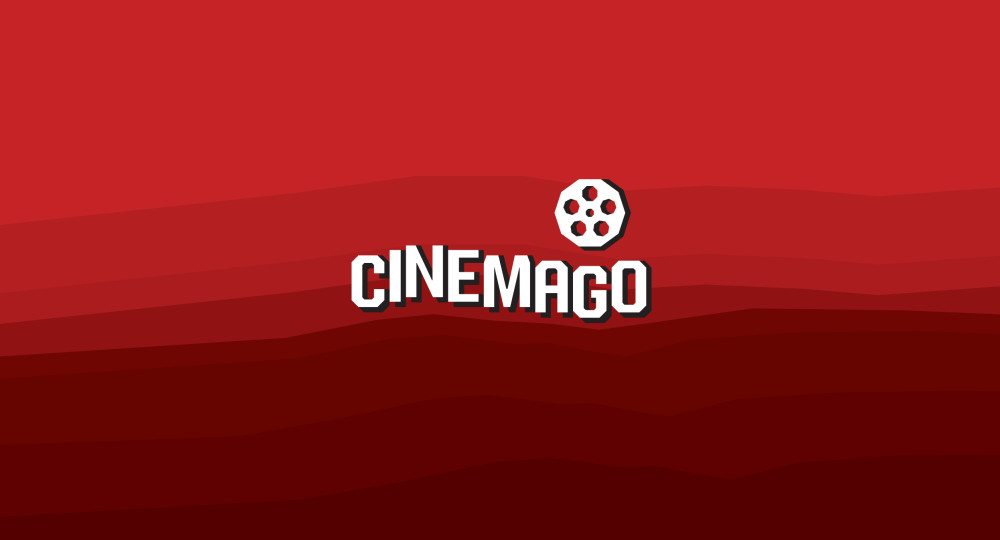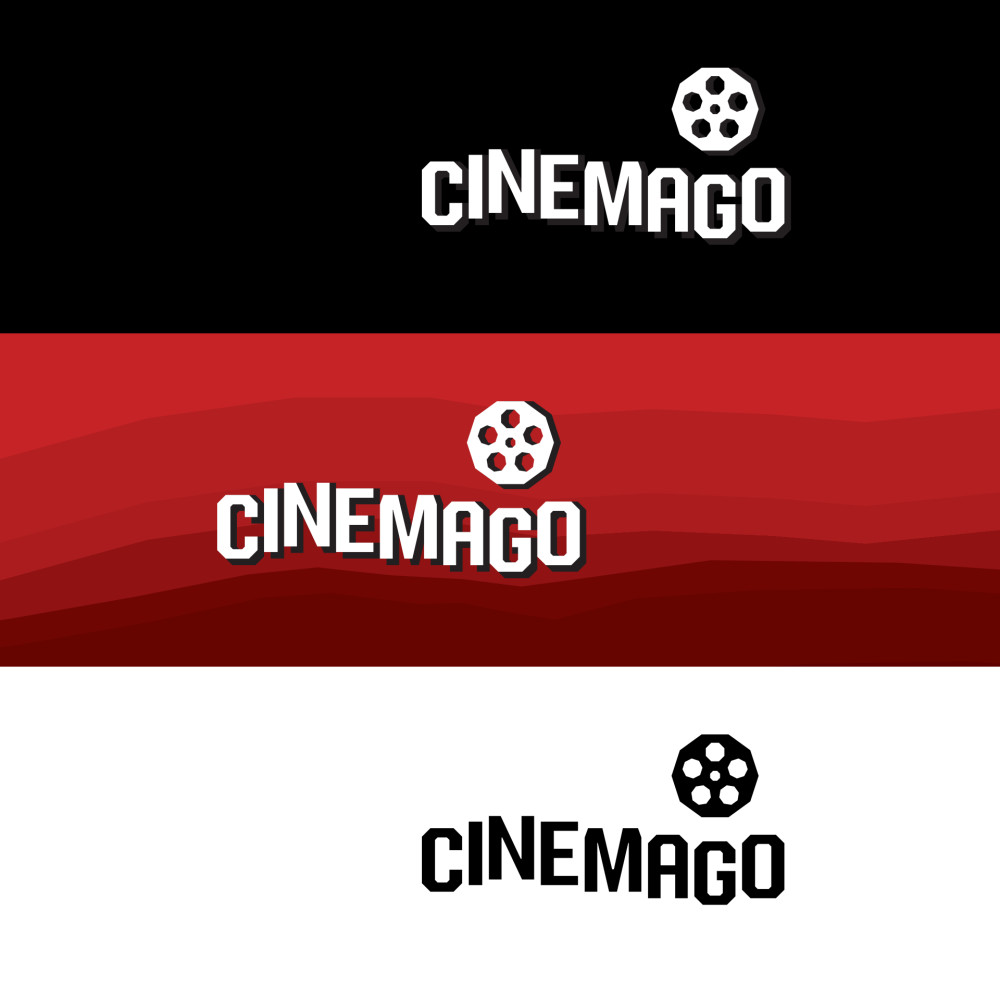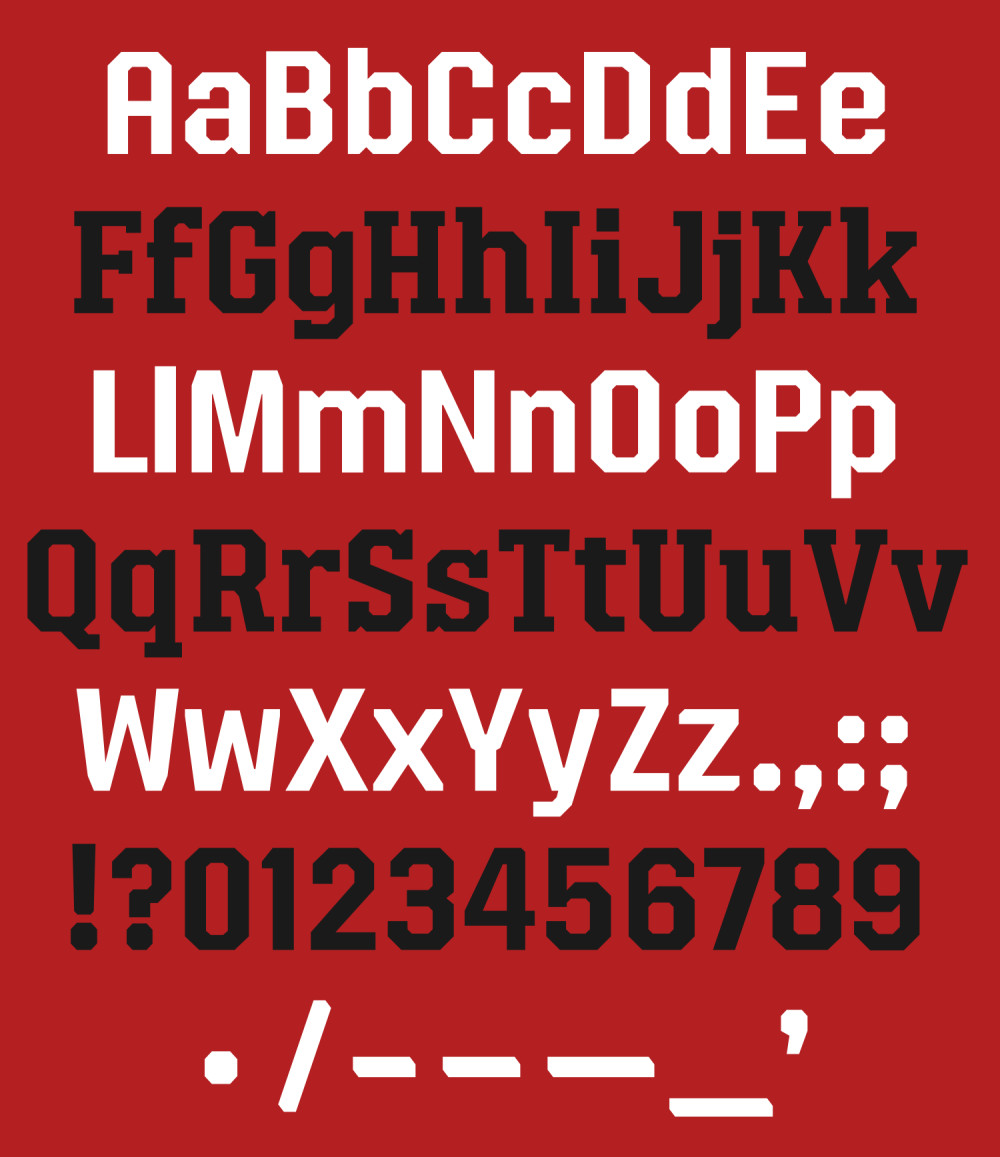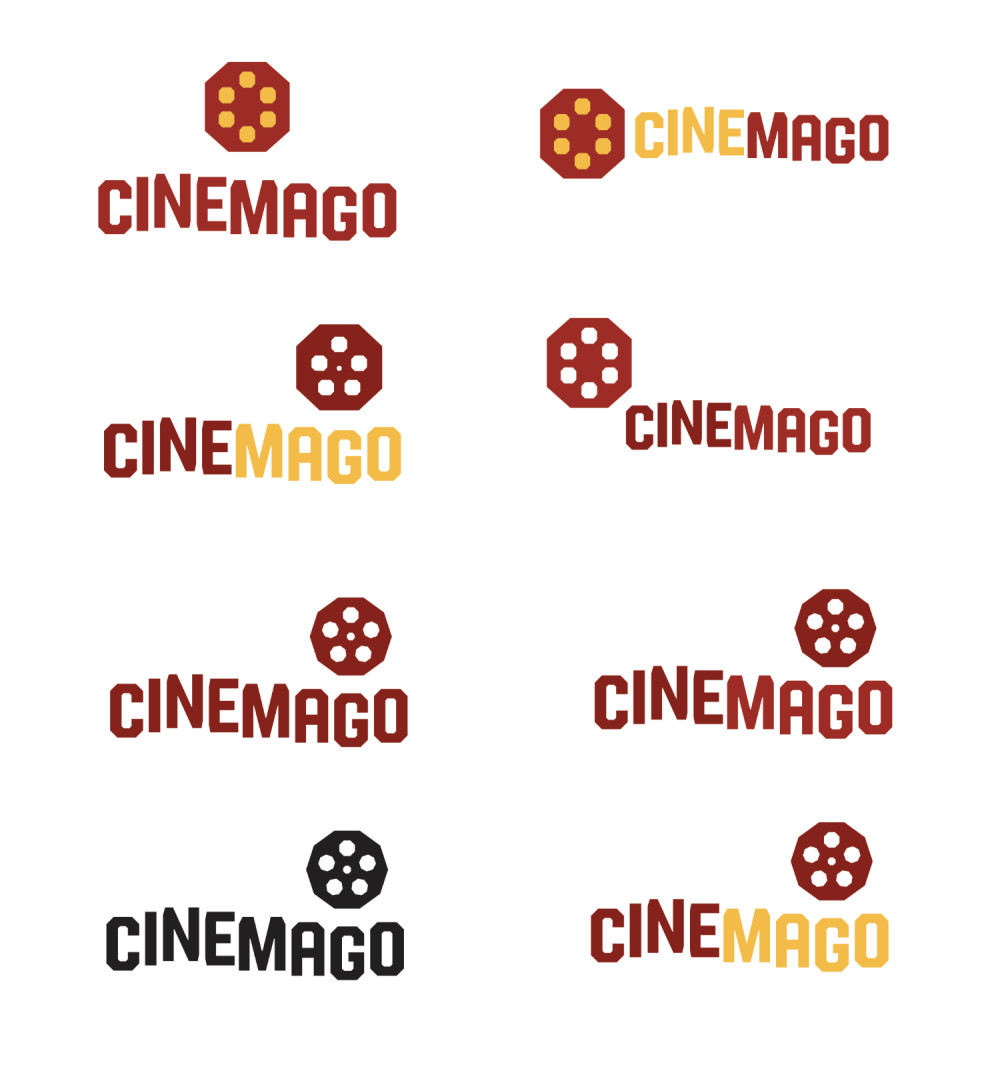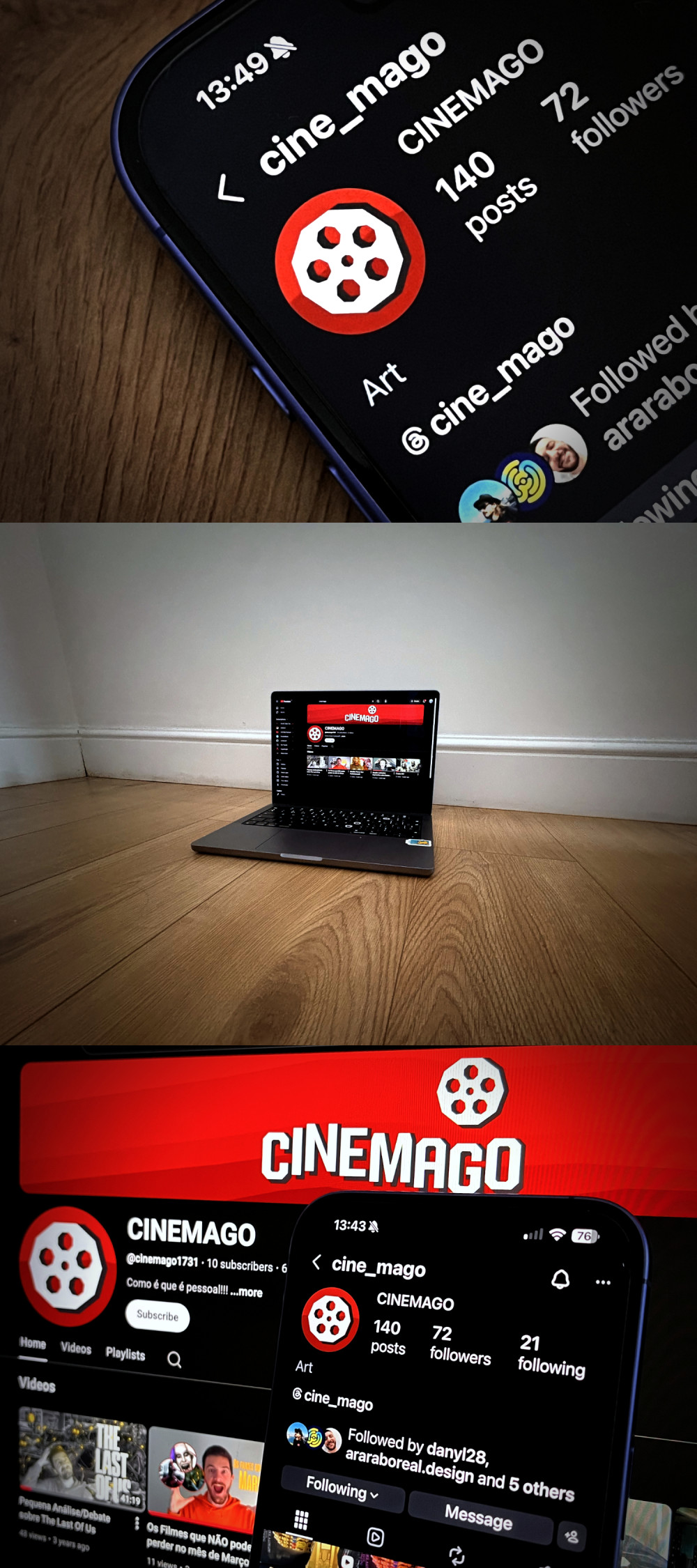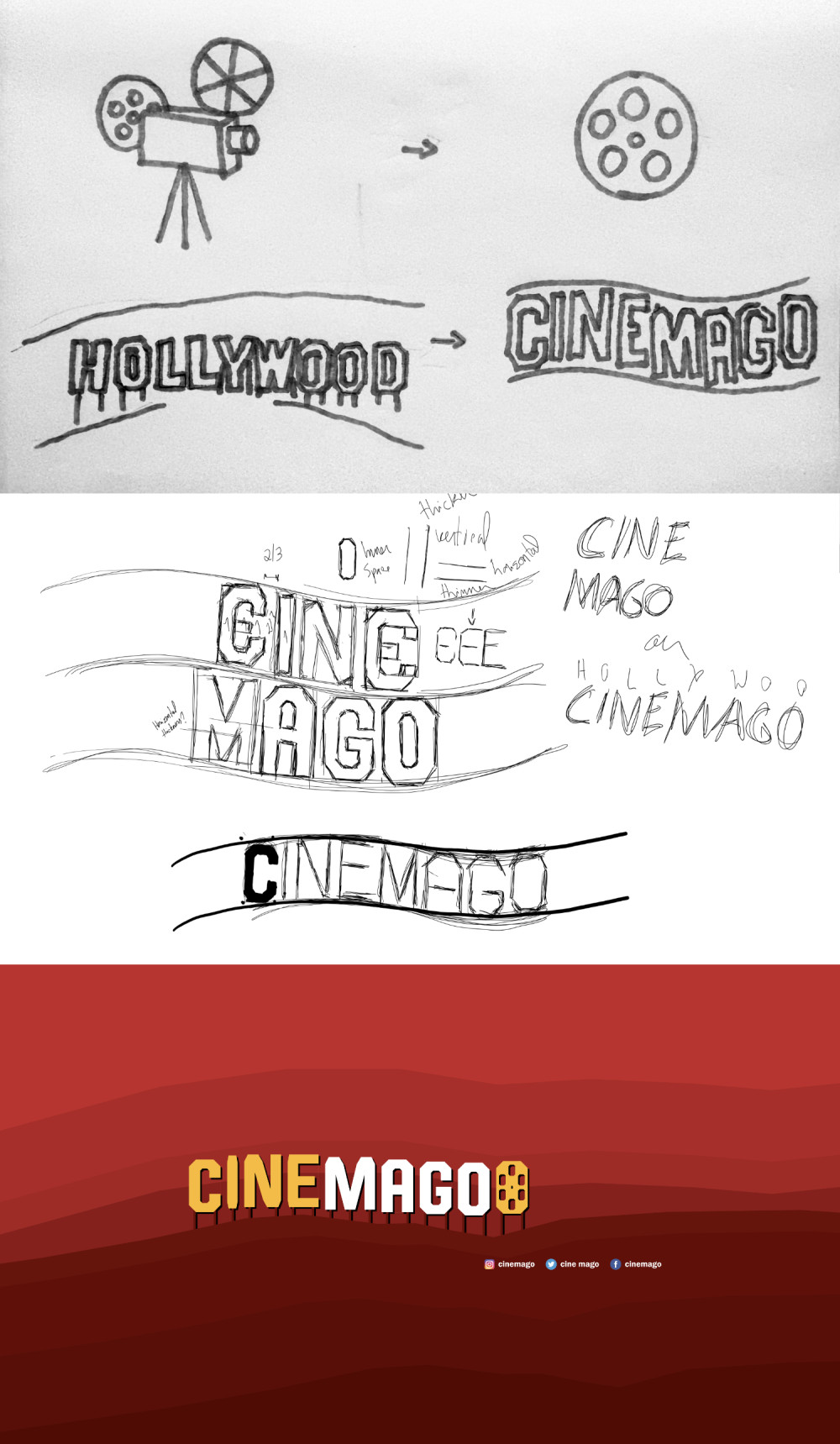
Cinemago Identity (2025)
Cinemago is an independent content creator who needed to build his brand across social media platforms. Originally focusing on cinema and videomaking, Cinemago wanted to reflect his passion for Hollywood movies, with particular appreciation for Tarantino's work. The brief therefore required a recognisable brand that could adapt to social media profile and cover images, while suiting the intro and outro sections of short to medium-form content, such as reels and YouTube videos.
The solution was a brand that combines a custom-made typeface inspired by the famous Hollywood sign, with a simple, yet effective logo evoking analogue cinematography. The colour palette on the other hand , was chosen according to famous Tarantino's movies posters, contrasting different shades of red with black and white.
While the film-roll symbol easily adapts to the round shapes of social media profiles, the custom-font serves as a key tool for the brand's textual elements, such as headlines, subtitles or captions. The result not only supports the essence of Cinemago's brand, but also responds to specific needs inherent to content creating. A solution where form and function meet to enrich recognition and improve workflows.
Cinemago brand.
Final outcome preview.
First sketches & digital samples.
From the start it became evident that the typographic solution would benefit from a wavy movement, referencing its inspiration.A warm tone of yellow was also considered given its predominance in some Tarantino's movie posters, like Kill Bill, Pulp Fiction, and even Jackie Brown.
Logotype in development.
The identity was then simplified and improved, with the film symbol becoming more prominent and geometric. The yellow was also abandoned to focus the colour palette around reds and high-contrast.
Isolated symbol.
The film roll became the centrepiece: easily recognisable and suitable for square/round profile pictures.
Final solution.
When combined, the symbol & signature match the horizontal formats of cover images, and complement the isolated version by showcasing the full concept behind the brand.
Cinemago typeface family
The initial version of the Cinemago family is usable for the brand's current needs, while leaving room for further exploration and future development.
Brand in use.
Photos of the project's practical implementation in Cinemago's socials.